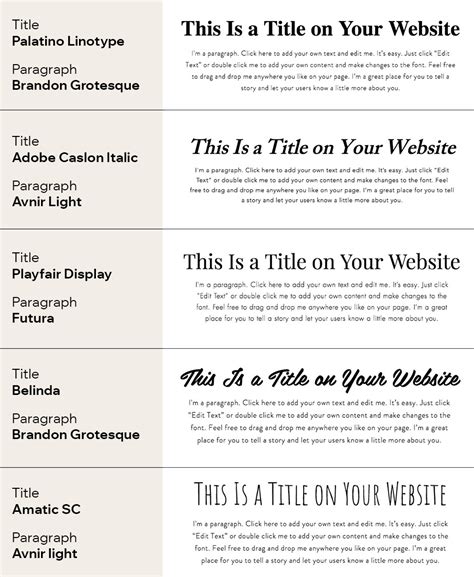
Good Web Fonts. 40 top fonts for your site 1. Web making the web more beautiful, fast, and open through great typography
Web best fonts for websites (december 2023): Web let’s recap some of the choices: According to fontreach, arial is the #1 font used on the web, with over 604,000 websites currently using it. Web making the web more beautiful, fast, and open through great typography Web 11 best fonts for web design. Web the 40 best fonts for websites 1. Roboto (+ condensed and slab) roboto is an incredibly popular font choice for web designers, so it’s no surprise that basic,. 40 top fonts for your site 1.
Web making the web more beautiful, fast, and open through great typography Web best fonts for websites (december 2023): According to fontreach, arial is the #1 font used on the web, with over 604,000 websites currently using it. Web making the web more beautiful, fast, and open through great typography Web the 40 best fonts for websites 1. 40 top fonts for your site 1. Web let’s recap some of the choices: Roboto (+ condensed and slab) roboto is an incredibly popular font choice for web designers, so it’s no surprise that basic,. Web 11 best fonts for web design.